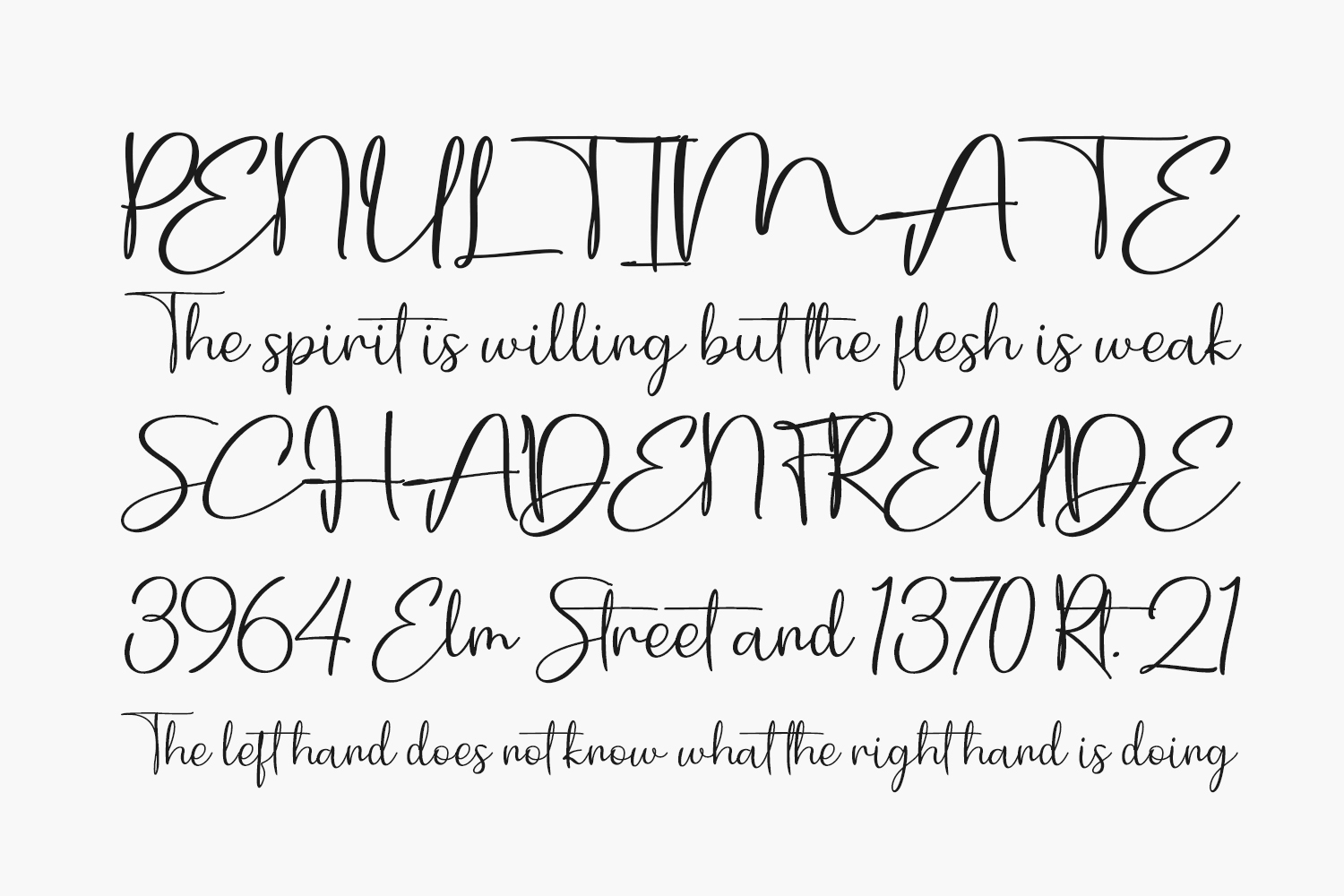
Baby Dandelia Free Font is a whimsical script font with a relaxed theme, featuring a lovely style. No matter the topic, this font will be an incredible asset to your fonts’ library, as it has the potential to elevate any creation. Baby Dandelia Free Font was designed by Tikara Sari and is free for personal use only. Please purchase the full version for commercial use.